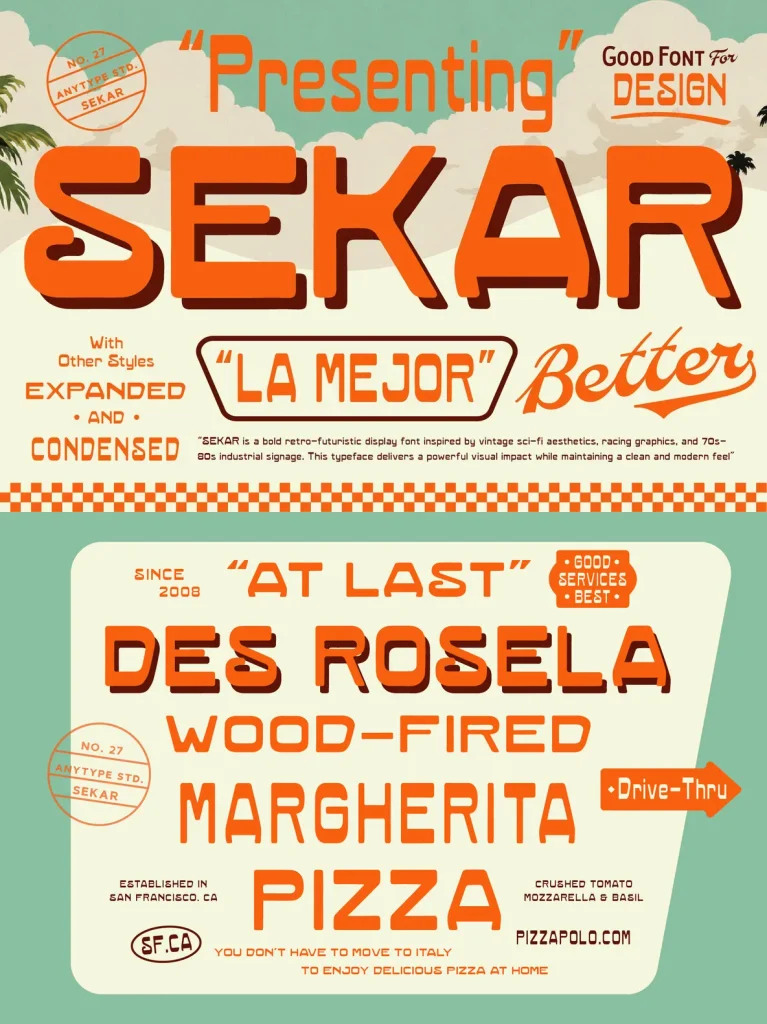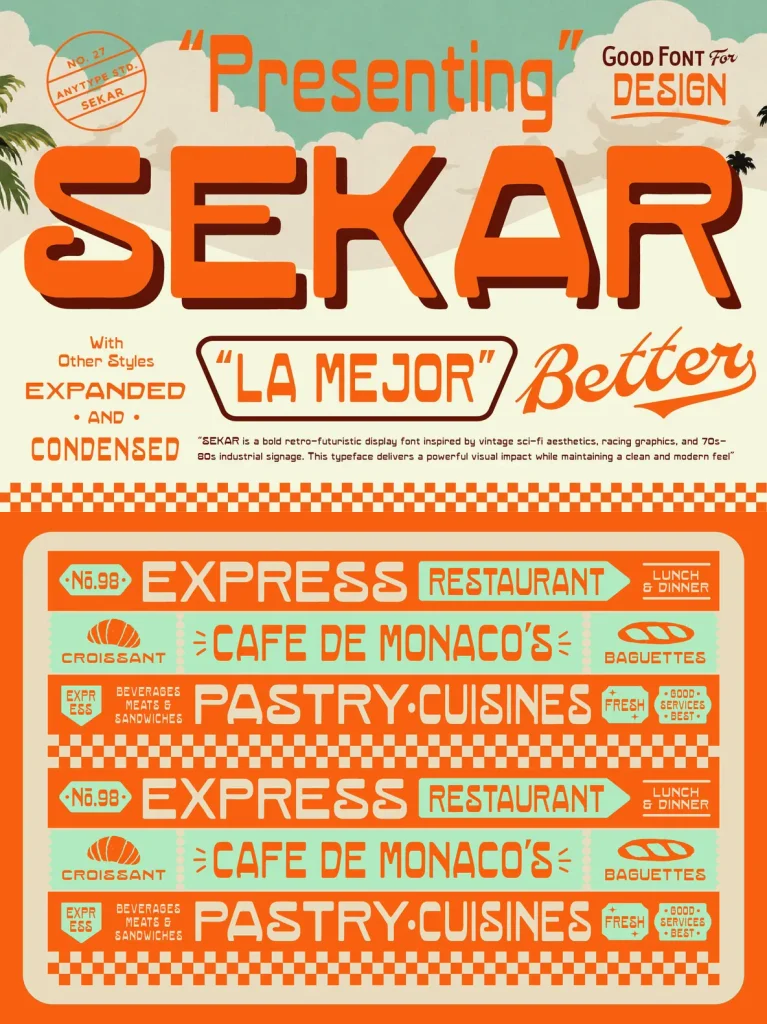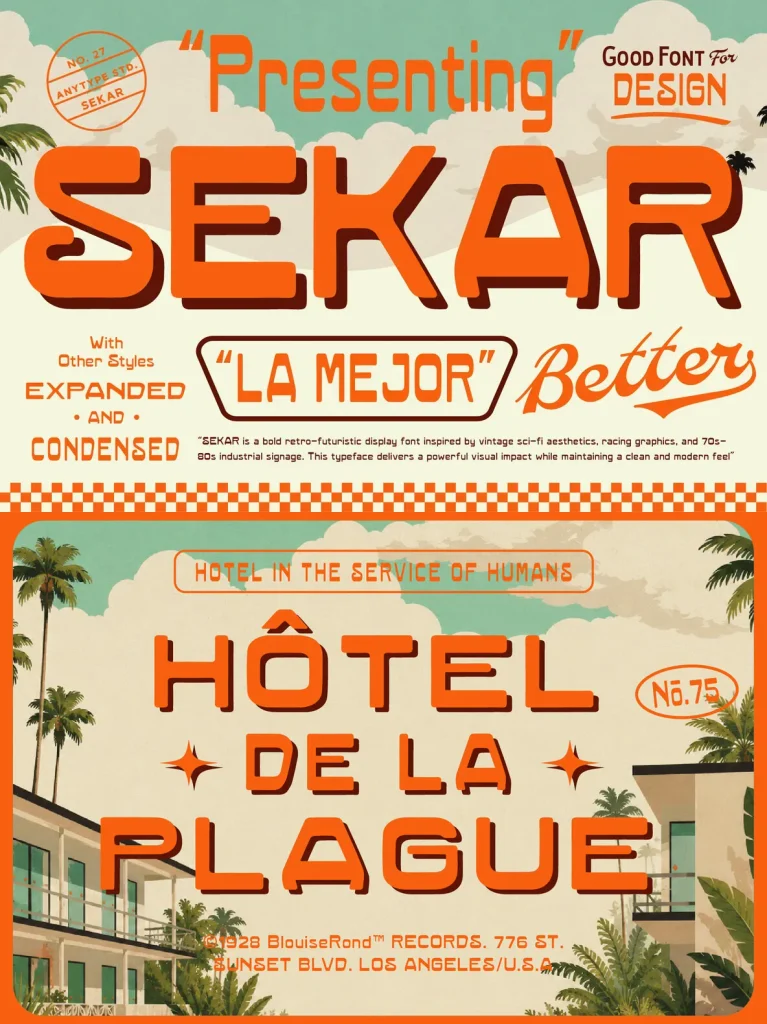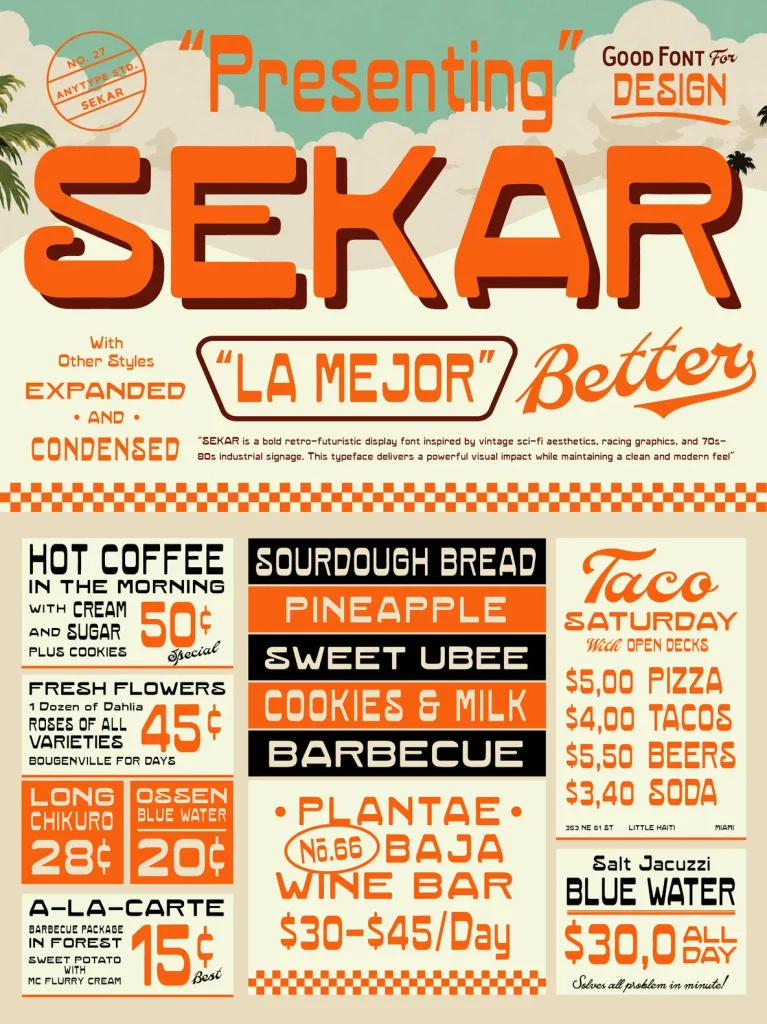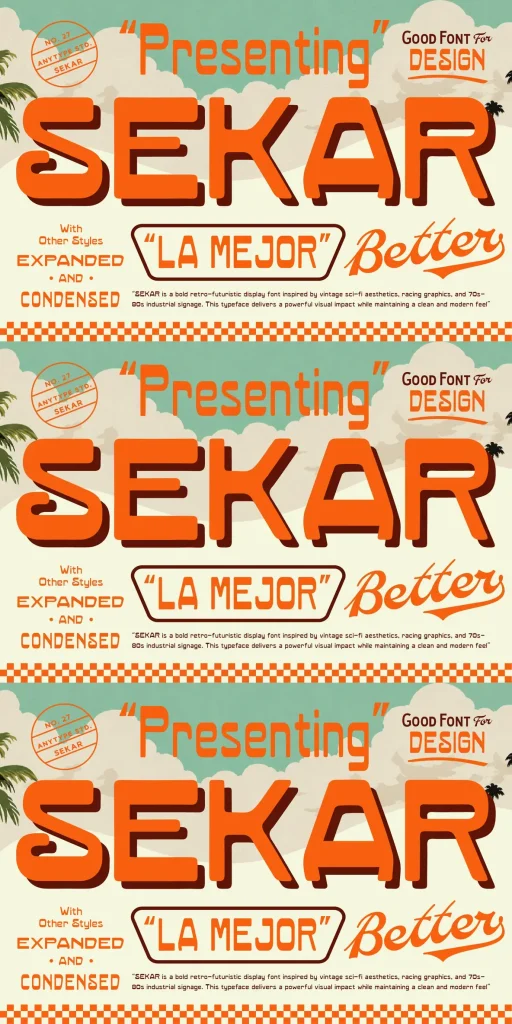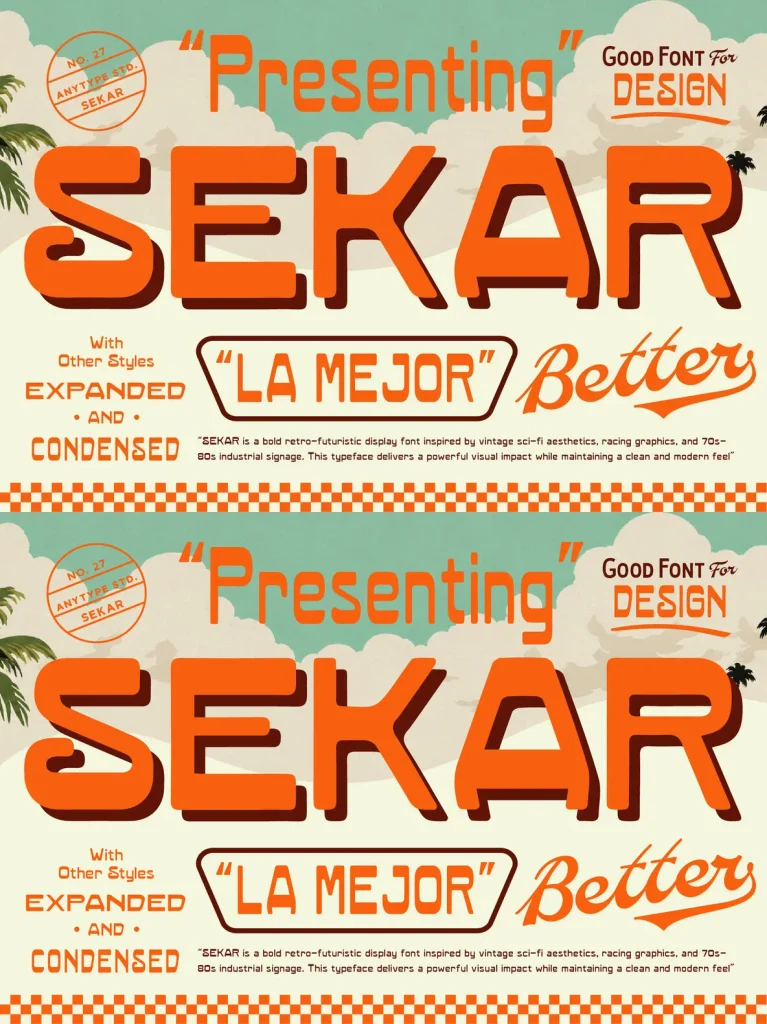
SEKAR ā Retro Speed, Sci-Fi Edge
SEKAR is a bold retro-futuristic display font shaped by vintage sci-fi aesthetics, racing graphics, and 70sā80s industrial signage. Its smooth rounded corners and strong geometric construction give the typeface a powerful visual presence while keeping the overall look clean and modern.
With distinctive character shapes and a confident display style, SEKAR works well for logos, posters, album covers, branding, packaging, headlines, apparel, gaming visuals, automotive themes, and futuristic design projects. Whether the direction is a nostalgic retro concept or a modern techno-inspired layout, SEKAR adds a clear personality that stands out with vintage energy and futuristic precision.
Bold Retro Style
Smooth Rounded Edges
For designers seeking a bold, unique, and memorable display font, SEKAR brings retro character and precise futuristic form into one strong typographic voice.